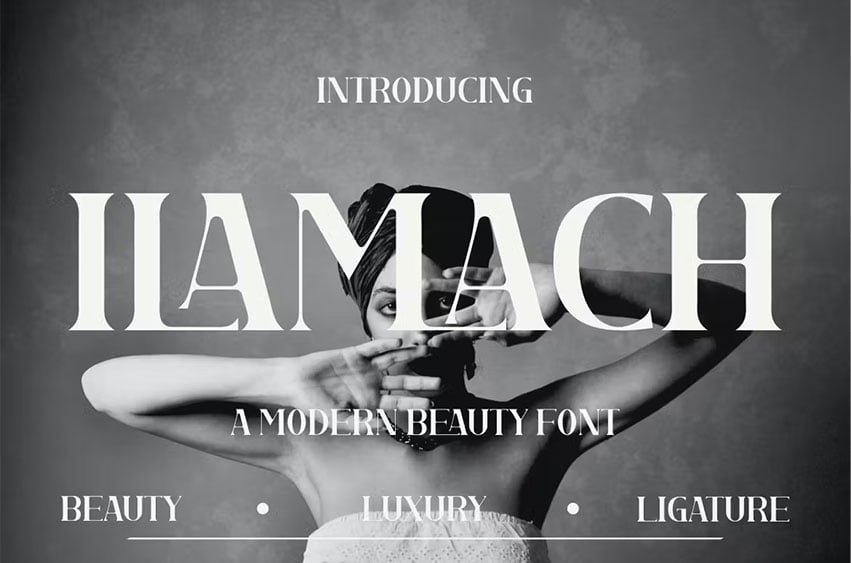
Ilamach Font Modern Font is a bold and authentic display font. The font is suitable for any branding project like logo, template design, esport, and many more. outstanding in a wide range of contexts.